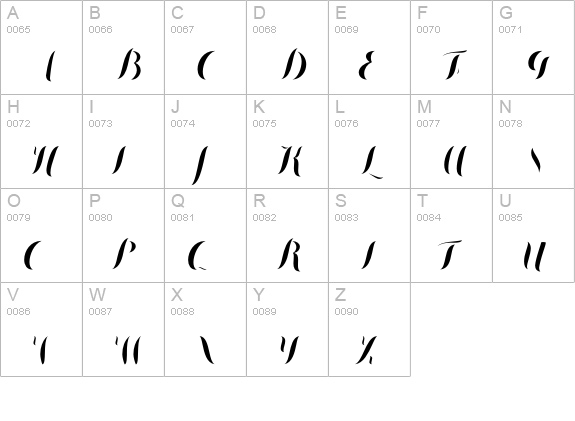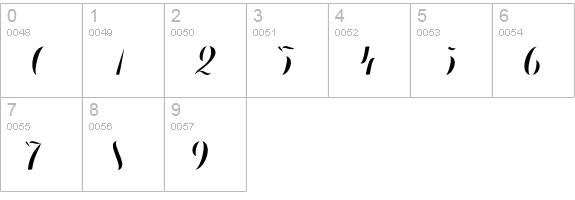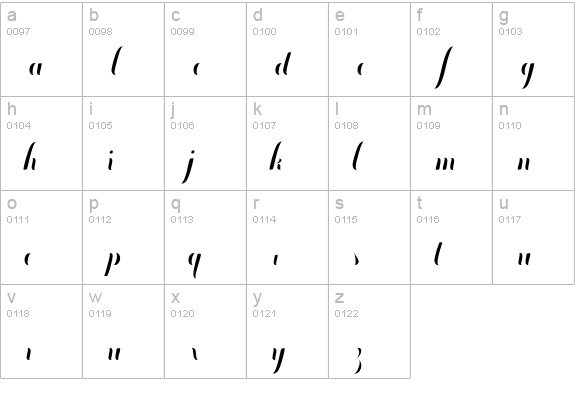
Chameleon Fill Solid font is a versatile and eye-catching typeface that adds a touch of playful elegance to any design project. With its unique blend of boldness and sophistication, this font is perfect for creating impactful headlines, logos, and branding materials. The Chameleon Fill Solid font features a solid fill style that exudes a modern and stylish flair, making it a great choice for a wide range of design applications. Best of all, Chameleon Fill Solid font is available for free download at FontsMarket.com. This means you can easily access this stunning font and incorporate it into your projects without any cost. Don't miss out on the opportunity to enhance your designs with the captivating charm of Chameleon Fill Solid font – download it today and unleash your creativity!